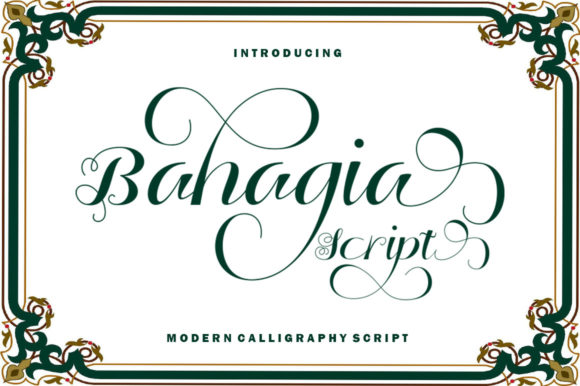
Bahagia Script Font: Elevate Your Designs with Elegance and Sophistication
In the world of typography, a font can make or break a design. A well-crafted font can elevate a creation from ordinary to extraordinary, while a poorly chosen one can detract from the overall impact. For designers and crafters seeking to add a touch of elegance and sophistication to their work, the Bahagia Script Font is an exceptional choice. This dazzling script font is meticulously designed to bring a high level of detail and refinement to any project, making it a valuable asset for those who demand the best.
What Makes Bahagia Script Font Stand Out?
Bahagia Script Font is not just another script font; it’s a masterpiece of typographic design. Here are a few key features that set it apart:
- Neatly Crafted and Highly Detailed: Every letter, stroke, and swash has been carefully crafted to ensure that the font exudes elegance and sophistication. The attention to detail is evident in the font’s clean lines, balanced proportions, and beautiful connections.
- Versatile and Adaptable: Whether you’re working on a branding project, a wedding invitation, or a packaging design, Bahagia Script Font can adapt to any topic or theme. Its versatility makes it an excellent addition to any font library.
The Benefits of Using Bahagia Script Font
For designers and crafters, investing in a high-quality font like Bahagia Script Font can have numerous benefits. Here are a few:
- Enhance Your Creations: With Bahagia Script Font, you can add a touch of sophistication and elegance to your designs, taking them to the next level.
- Stand Out from the Crowd: In a world where design trends are constantly evolving, Bahagia Script Font can help you stay ahead of the curve. Its unique and distinctive style ensures that your creations will stand out from the crowd.
How to Use Bahagia Script Font in Your Designs
Using Bahagia Script Font in your designs is straightforward. Here are a few tips to get you started:
- Pair it with Other Fonts: Combine Bahagia Script Font with other fonts to create a unique and visually appealing typography scheme.
- Experiment with Swashes: Take advantage of the font’s extensive swash collection to add flair and personality to your designs.
- Pay Attention to Kerning: To ensure that your text looks professional and polished, pay attention to kerning and adjust the spacing between letters as needed.
In conclusion, Bahagia Script Font is an exceptional addition to any font library. Its elegant design, versatility, and PUA encoding make it an excellent choice for designers and crafters seeking to elevate their creations. Whether you’re working on a branding project, a wedding invitation, or a packaging design, this font is sure to impress. With Bahagia Script Font, you can add a touch of sophistication and elegance to your designs, taking them to new heights.